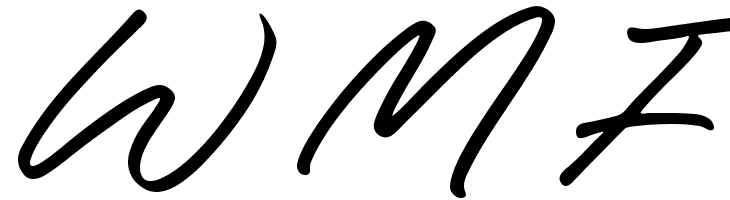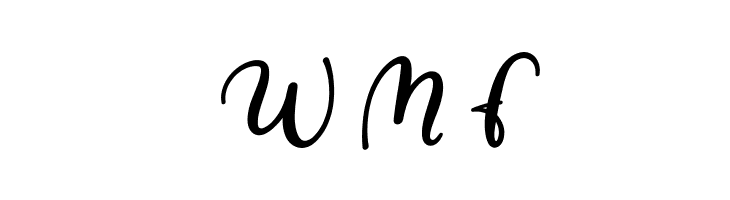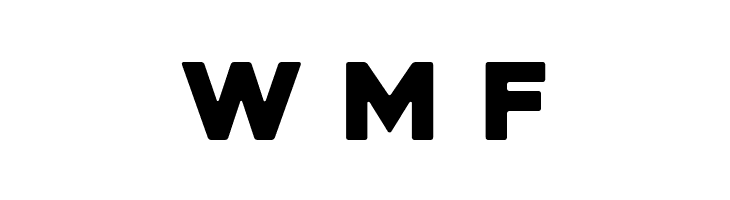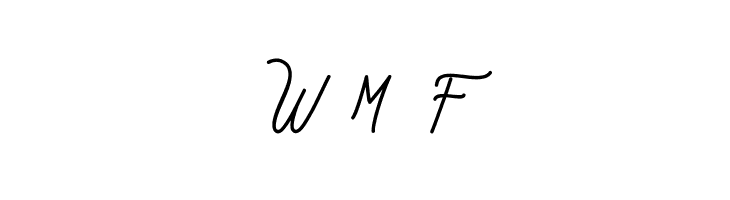
A bold, geometric font with uniform stroke width and rounded edges.
A bold, geometric font with angular shapes and a strong, industrial aesthetic.
A bold, geometric font with sharp angles and a modern aesthetic.
A bold, geometric font with a striped, industrial design.
A fluid and elegant handwritten script font with dynamic strokes.
A handcrafted, playful font with an organic, handwritten style.
A dramatic blackletter font with ornate, gothic-inspired details.
A dynamic script font with elegant, flowing cursive letterforms.
A cursive, handwritten font with elegant loops and dynamic contrast.